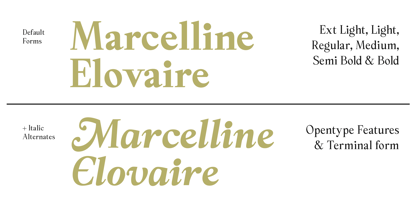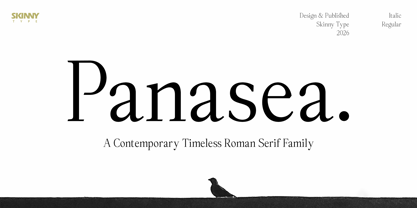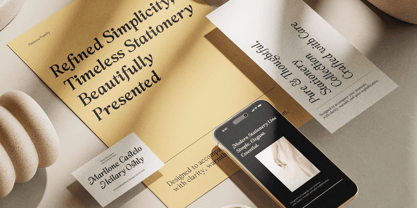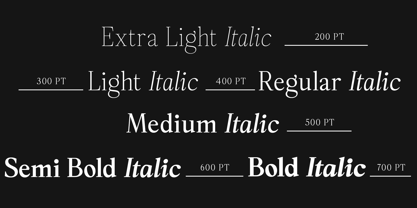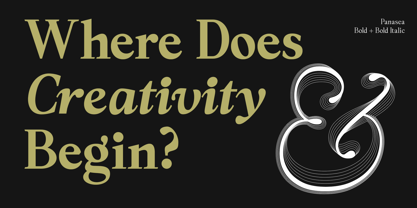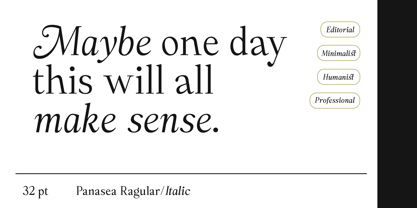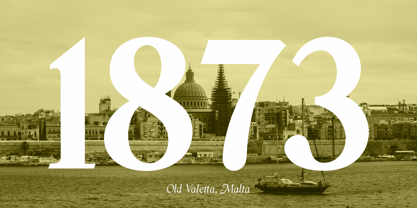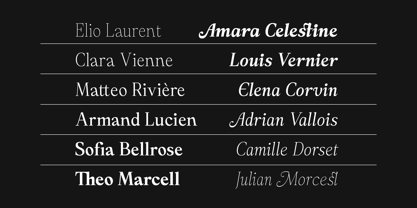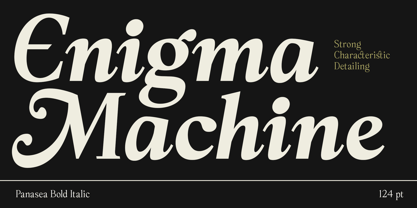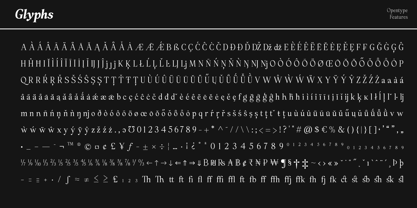
Panasea
by Skinny Type
The Panasea Font Family was designed by Muhajir and published by Skinny Type. Panasea contains 14 styles and family package options. More about this family
Panasea is a represents a contemporary reinterpretation of the Roman Serif tradition, integrating historical typographic principles with a more rationalized and reductive modern design approach. Its letterforms preserve classical proportions—characterized by controlled stroke contrast, precisely articulated serifs, and stable curvature modulation—while undergoing formal simplification to achieve greater visual clarity and refinement.
Formally, the characters exhibit a balance between vertical stability and fluid curvature, generating a harmonious and measured typographic rhythm. Subtle terminal treatments and relatively open apertures enhance legibility while introducing a restrained humanistic nuance. The inter-letter proportions are carefully calibrated with strong attention to optical consistency, resulting in a smooth and cohesive text texture.
In application, this typeface is particularly well-suited for editorial contexts, premium branding, and design communications that require an intellectual and sophisticated tone. As such, it embodies a synthesis of classical heritage and contemporary sensibility—offering a typographic expression that is both timeless and relevant within the current design landscape.